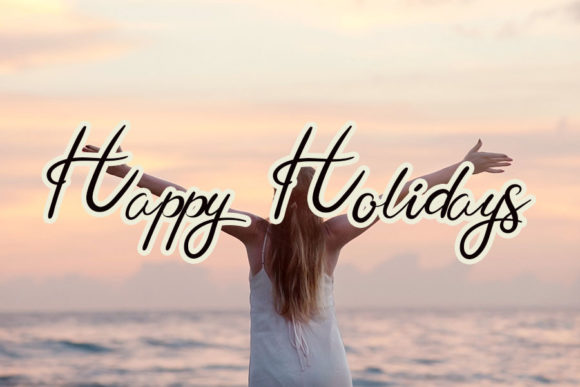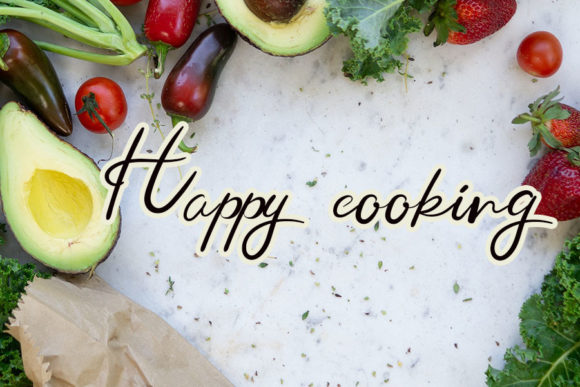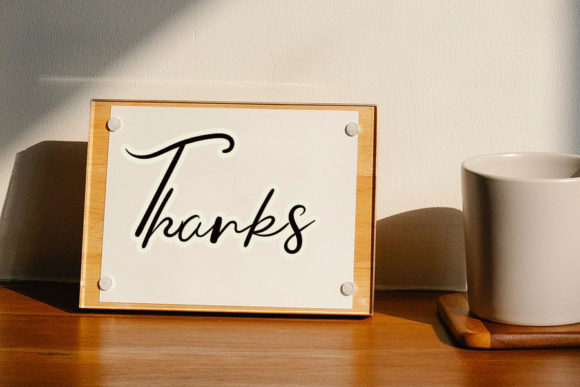
Introduction to Rendang Font
As designers, we’ve all been there – staring at a blank canvas, searching for the perfect font to bring our creative project to life. The struggle is real, but what if I told you there’s a solution that will make your designs pop? Enter the Rendang Font, a stunning handwritten font that’s about to become your new go-to design resource.
This high-quality font is not just a pretty face; it’s also incredibly versatile. Whether you’re designing a food menu, poster, flyer, or print, Rendang Font is sure to add a touch of elegance and sophistication. And the best part? It’s available for free download, making it a valuable asset for designers of all levels.
With its transparent background and natural, handwritten feel, Rendang Font is the perfect addition to any design project. So why settle for ordinary when you can have extraordinary? Get ready to elevate your designs with the Rendang Font and discover its endless possibilities.
Rendang Font
- High-quality font with a rich and authentic Malay design, perfect for creative projects.
- Comes with transparent background, allowing for easy use in various design applications.
- Includes a wide range of characters, including letters, numbers, and special symbols, making it suitable for various design needs.
- Perfect for designers and artists working on projects related to Malay culture, food, or travel.
Honest Review: Rendang Font
As a designer, I’m always on the lookout for high-quality fonts to elevate my creative projects. Recently, I had the chance to try out the Rendang Font, and I’m excited to share my honest review.
What works well: ✨ I was impressed with the Rendang Font’s unique and elegant design, making it perfect for projects that require a touch of sophistication. The font is also available for free download, which is a huge plus for designers on a budget. The transparent background feature allows for seamless integration into various design elements.
Here are some of the key features that caught my attention:
- High-quality design suitable for creative projects
- Wide range of applications, from digital to print
Limitations: ⚠️ While the Rendang Font is a great addition to any design resource collection, I did notice that it’s not as versatile as some other fonts on the market. Additionally, the font may not be suitable for projects that require a more modern or minimalist aesthetic.
Overall impression: I’m impressed with the Rendang Font’s unique design and high-quality features. While it may have some limitations, it’s definitely worth considering for designers looking for a sophisticated font for their creative projects.
Tips for Getting the Most Out of Rendang Font
Experiment with different font sizes, colors, and styles to get the most out of Rendang Font. Use it in combination with other design elements, such as images or graphics, to create a visually appealing design. You can also use Rendang Font with a transparent background to create a subtle design element.
Common Use Cases for Rendang Font
Rendang Font is a versatile design resource that can be used in a variety of creative projects, such as logos, branding materials, and marketing materials. It’s also a great font to use for titles, headings, and body text in presentations, reports, and documents.